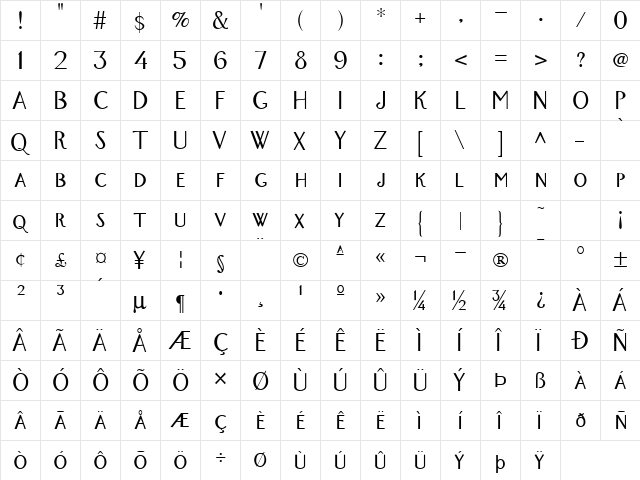
New-York Normal
Design Context for New-York Typeface
New-York takes a measured approach to typography — its balanced proportions and neutral character make it a reliable workhorse for both digital and print work.